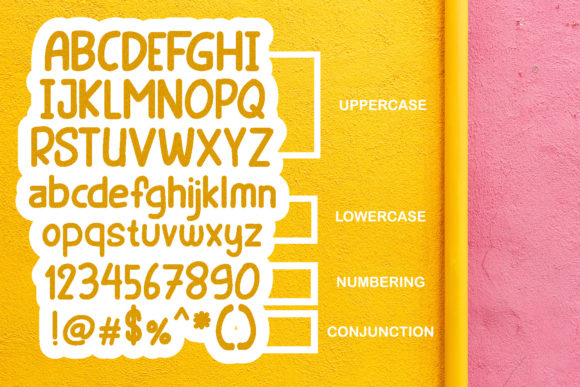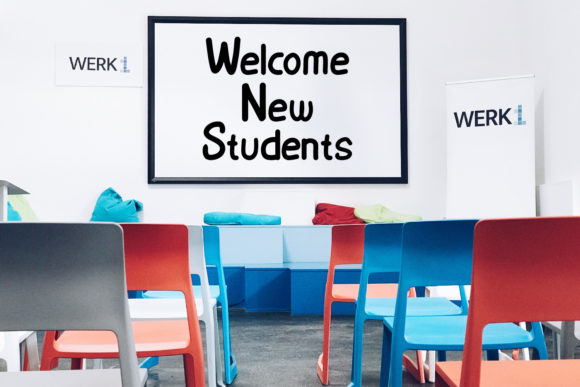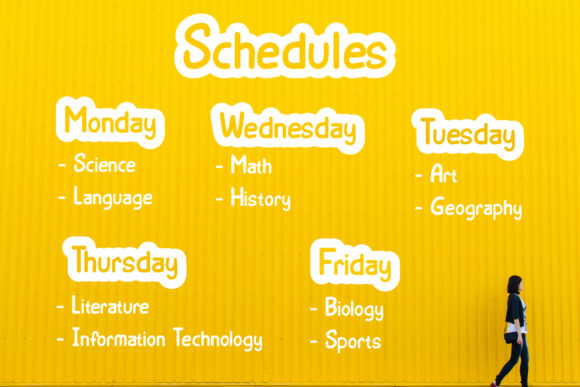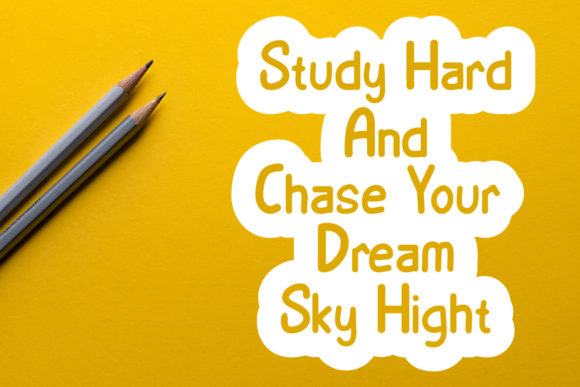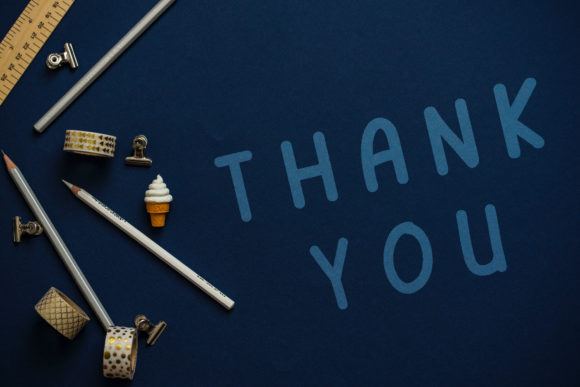
Kindergarten Font
About Kindergarten Font
Kindergarten is a cute and friendly handwritten font. Fun and natural, this themed font is perfect for children’s books, online learning, posters, crafts, and school-themed work.